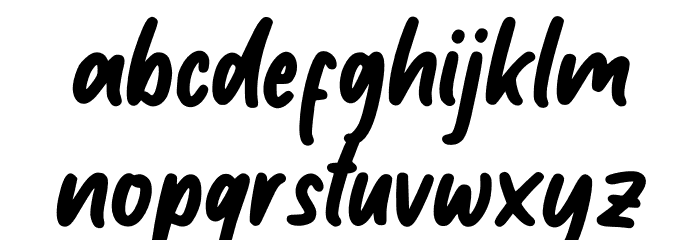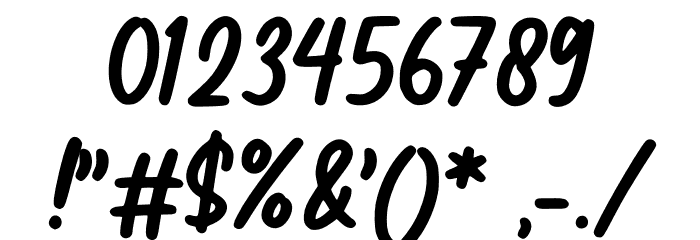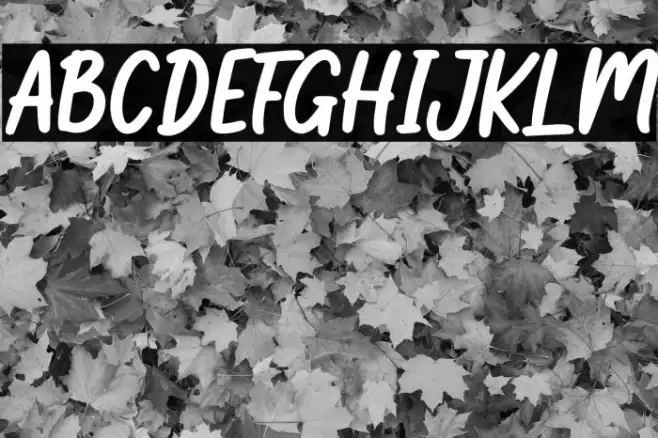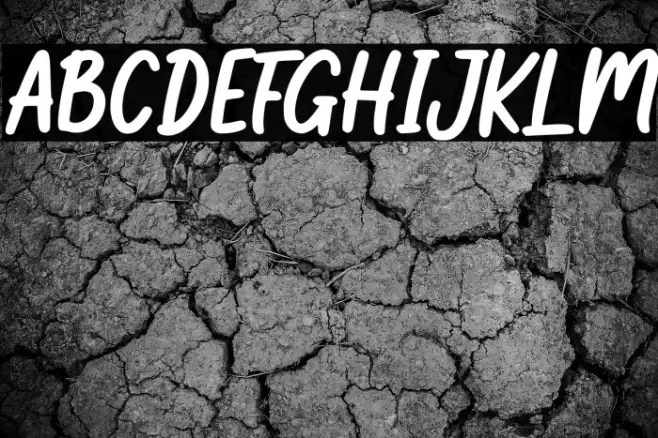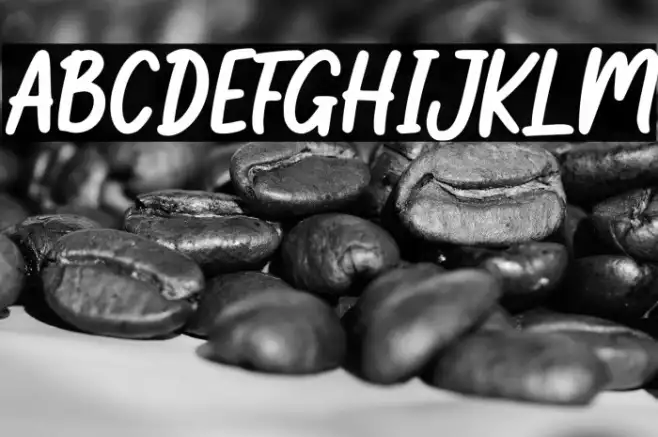
Little Student Font
This font exhibits a playful and energetic handwritten style, characterized by its bold and flowing letterforms. The strokes are thick and consistent, giving it a strong presence on the page. The letters are slightly slanted, adding a dynamic and informal touch. The uppercase and lowercase letters are well-balanced, with a smooth transition between them. The numbers and special characters maintain the same lively aesthetic, making the font versatile for various uses. Its overall appearance is both friendly and approachable, suitable for projects that require a personal and creative touch.
A bold, playful handwritten font with dynamic, flowing strokes.
- Font: Little Student
- Proposed Projects: Ideal for children's books, greeting cards, playful branding, and creative posters.
- Category: Handwritten
- Overall Style: Playful
- Use Case: Headlines, Logos, Creative projects